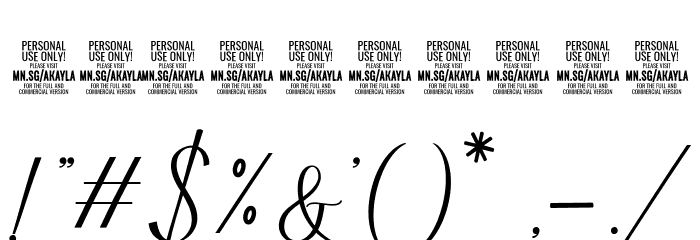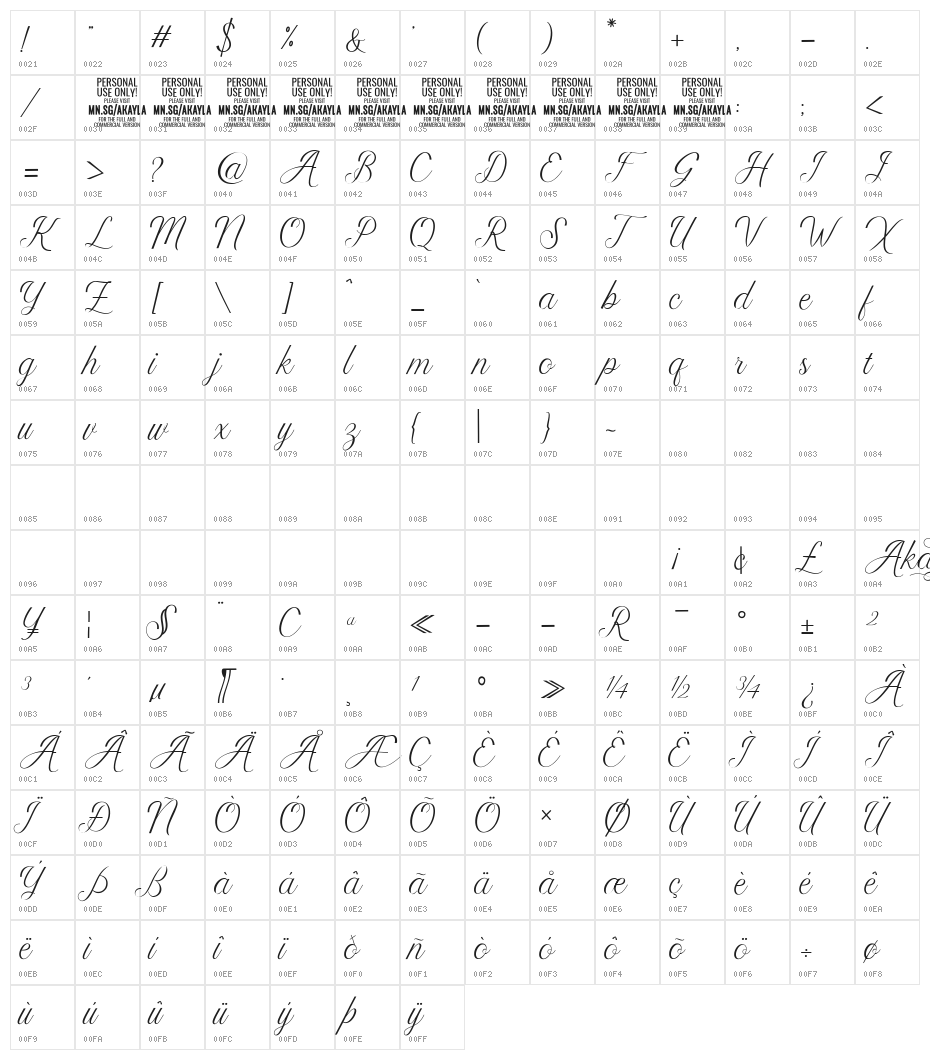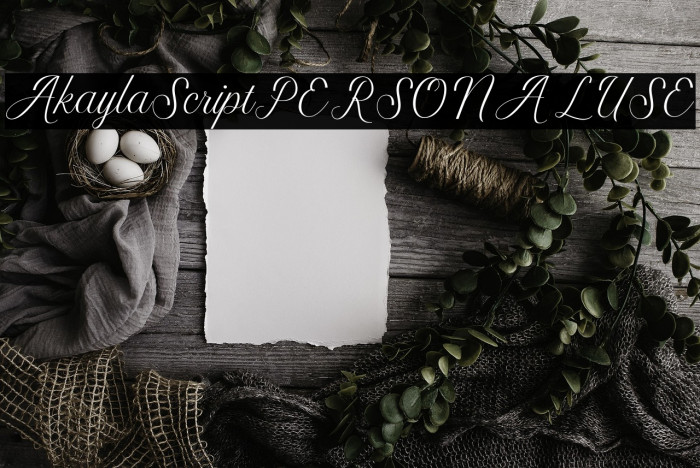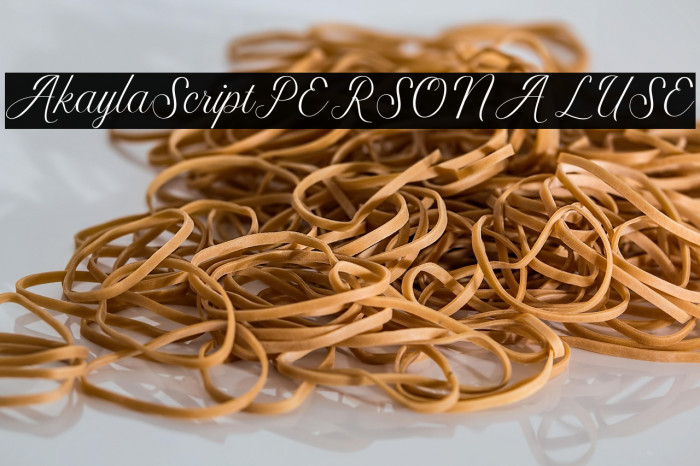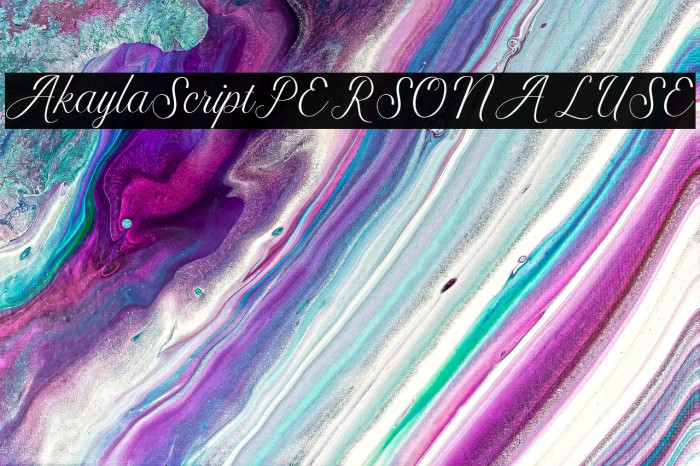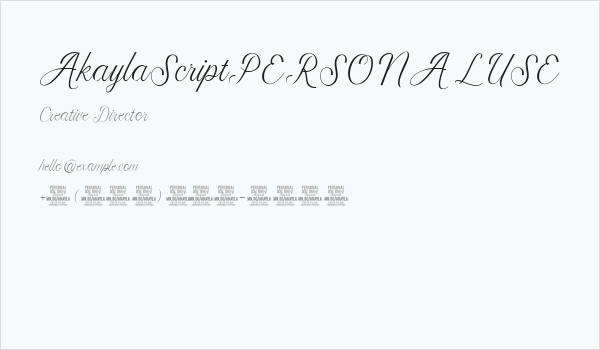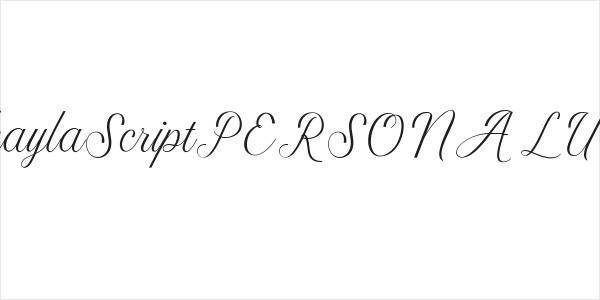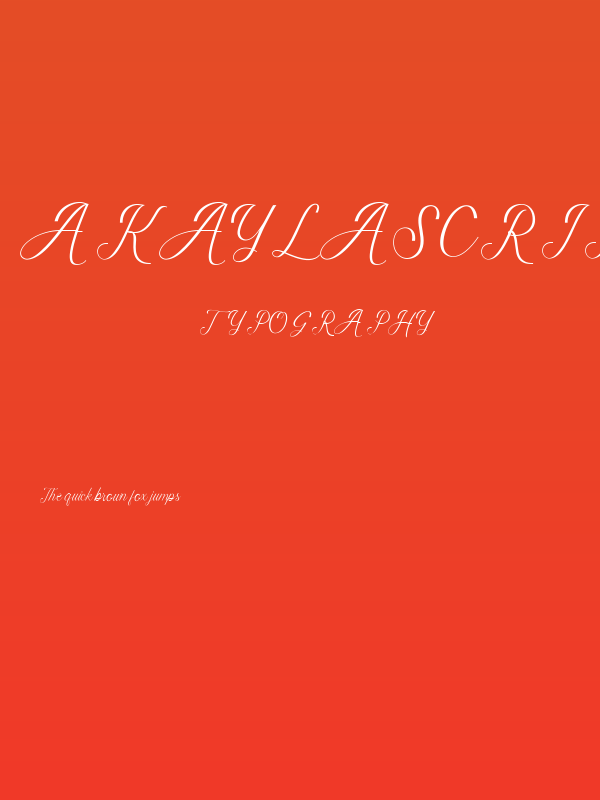
AkaylaScriptPERSONALUSE Font
AkaylaScriptPERSONALUSE Description
This elegant script font features flowing, cursive letters with a refined and sophisticated appearance. The uppercase letters are characterized by their graceful loops and swashes, while the lowercase letters maintain a smooth and connected style, enhancing readability. The font includes a full set of numerals and a variety of special characters, making it versatile for different design needs. Its delicate strokes and high contrast between thick and thin lines give it a luxurious feel, suitable for formal and decorative applications.
| Proposed Projects | Ideal for wedding invitations, elegant branding, greeting cards, and luxury packaging. |